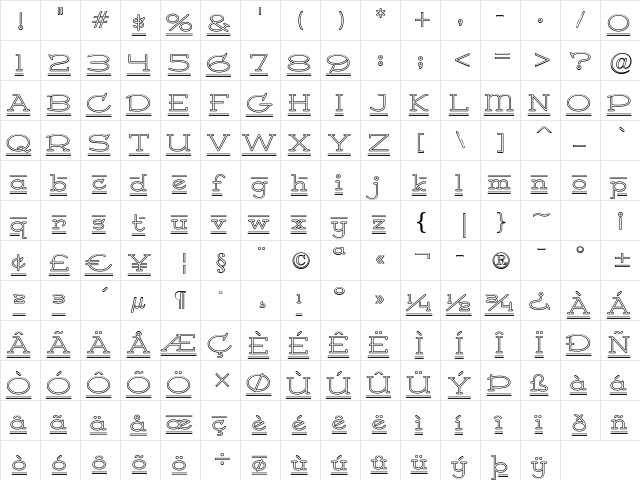
Princess Royal BTN Outline Regular
Design Context for Princess Royal BTN Outline Typeface
Princess Royal BTN Outline brings ornamental detail and strong personality to headlines and identities, where visual impact matters more than quiet functionality.
Font Pairing: Pair with a clean neutral sans-serif for body copy to let Princess Royal BTN Outline's character lead without overwhelming the composition.
Pro Tip: Use Princess Royal BTN Outline exclusively at display sizes — it was designed to be seen, not read at length. Let a neutral companion handle body copy.